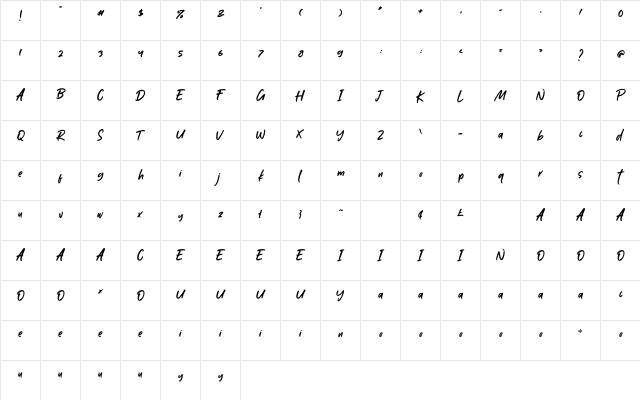
Pallistha Regular Font Preview
Pallistha Regular
Pallistha Regular Font Details
| Designer | Agung Rohmat |
Design Context for Pallistha Typeface
Pallistha is a composed and adaptable typeface that performs quietly and consistently across a wide range of design contexts.